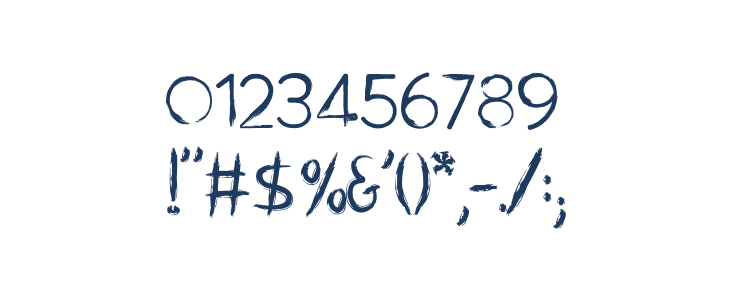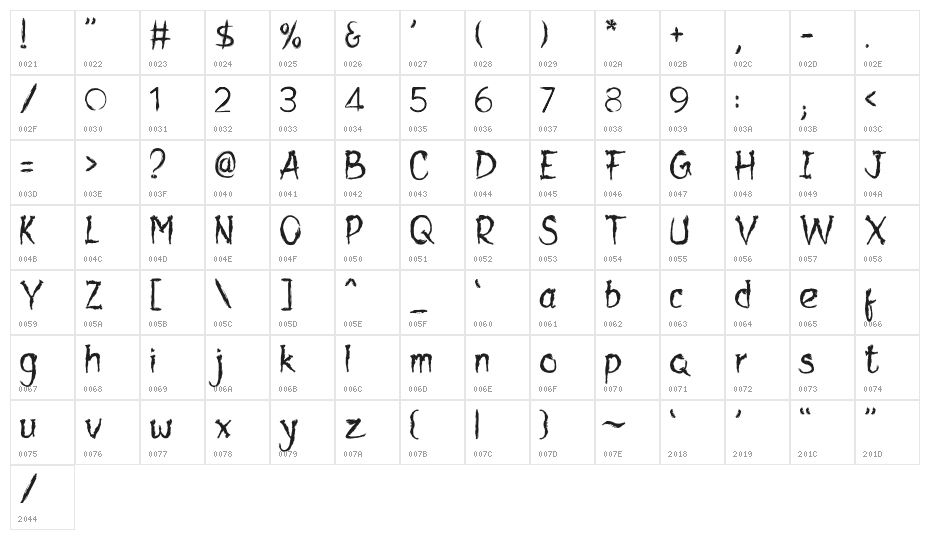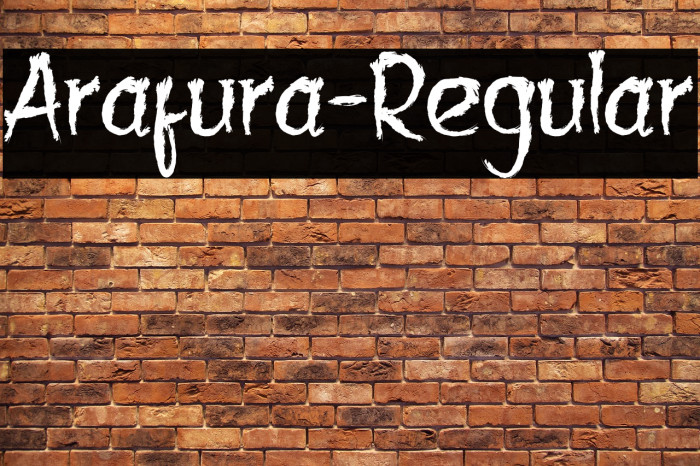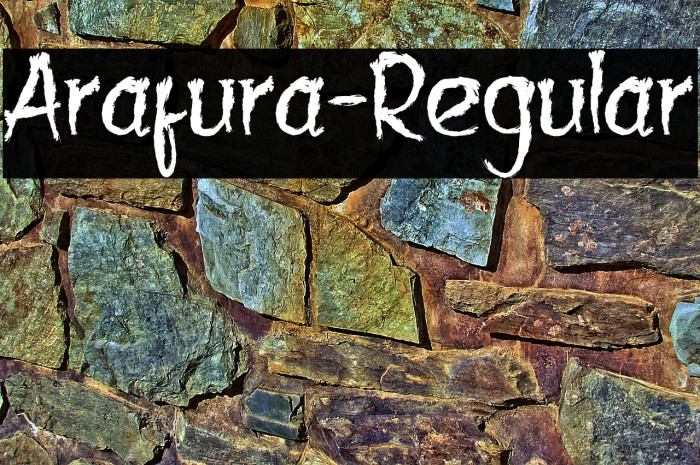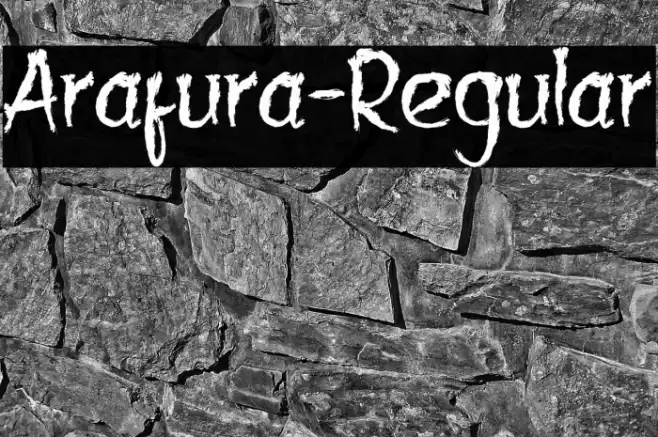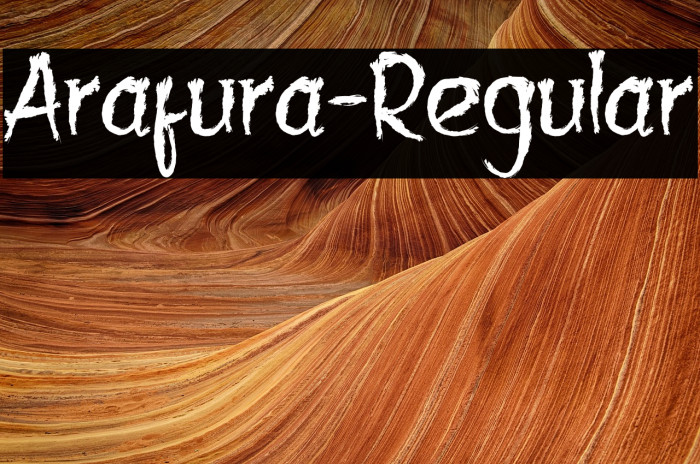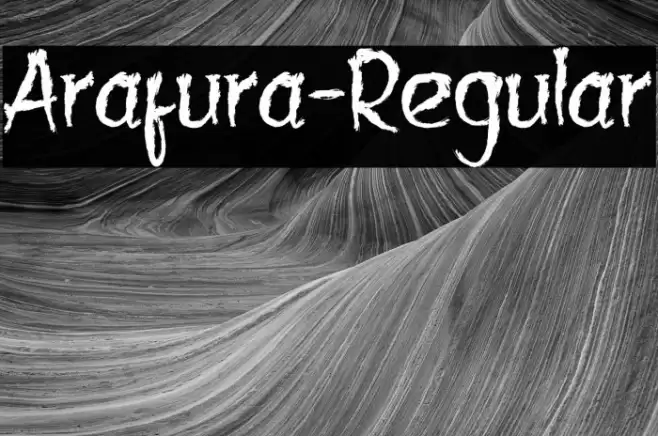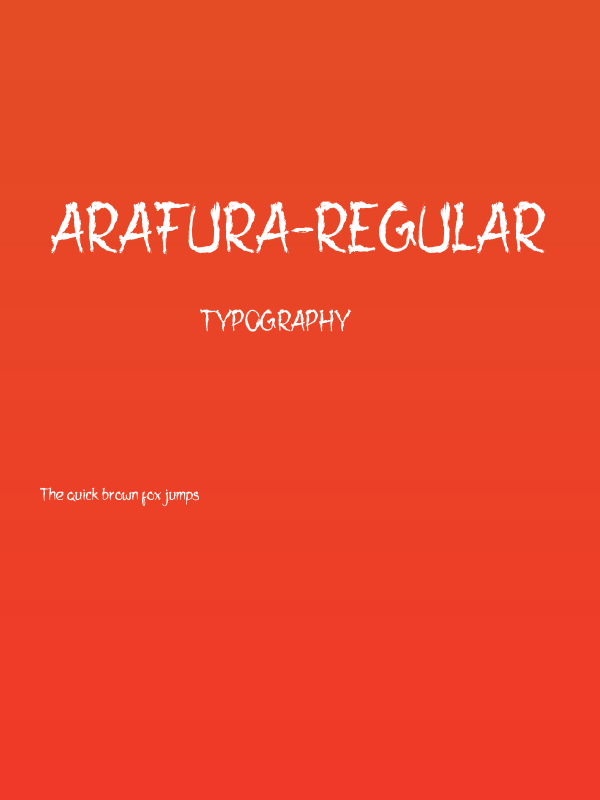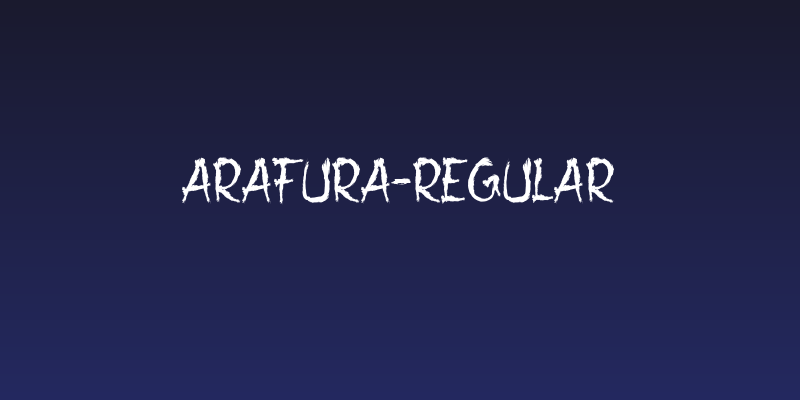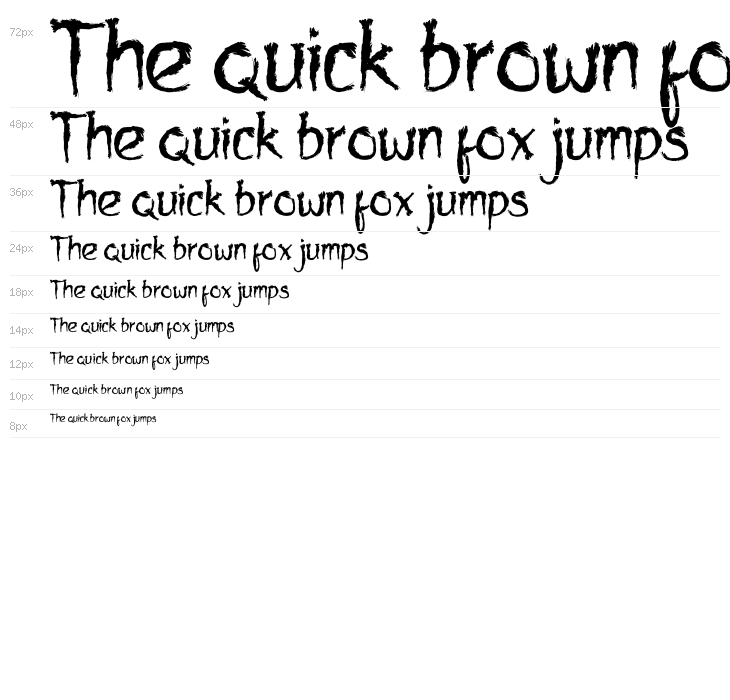
Arafura-Regular Font
Arafura-Regular Description
This font features a rugged, hand-drawn appearance with a brush-like texture that gives it a dynamic and organic feel. The letters have an uneven, jagged edge, adding a sense of movement and energy. The uppercase and lowercase characters maintain a consistent style, with a slightly wider stance in the uppercase letters. Numbers and special characters follow the same textured style, ensuring a cohesive look across all glyphs. This font's unique style makes it stand out, offering a bold and artistic expression.